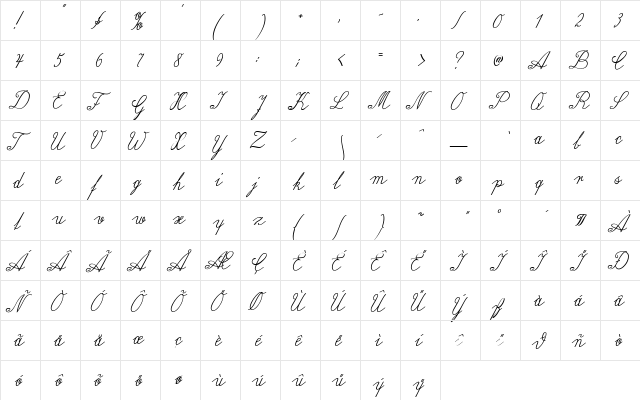
Wiegel Latein Medium Regular
| Foundry | Peter Wiegel |
| Designer | Peter Wiegel |
Design Context for Wiegel Latein Medium Typeface
Wiegel Latein Medium takes a measured approach to typography — its balanced proportions and neutral character make it a reliable workhorse for both digital and print work.